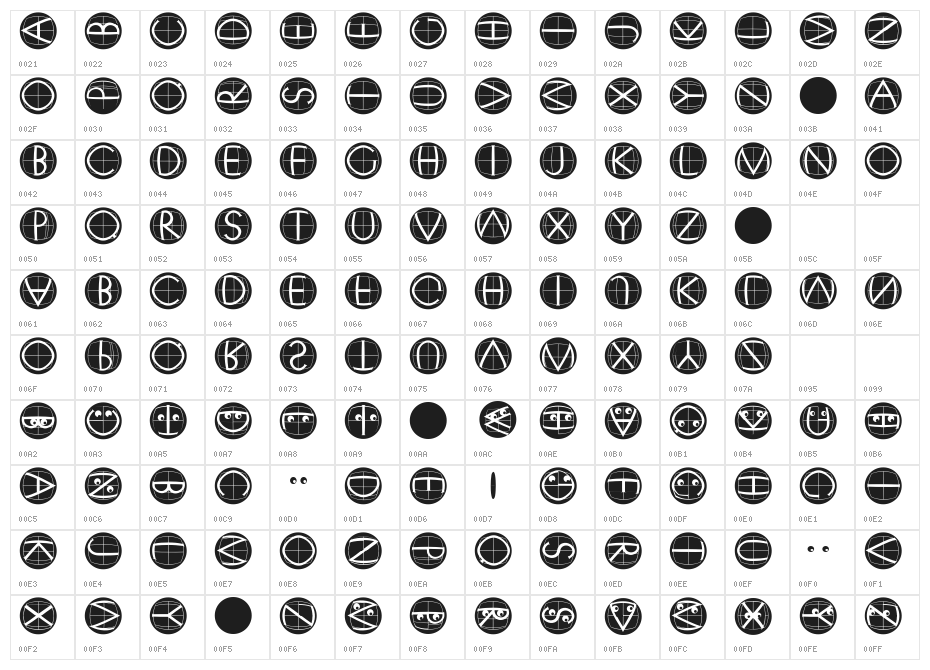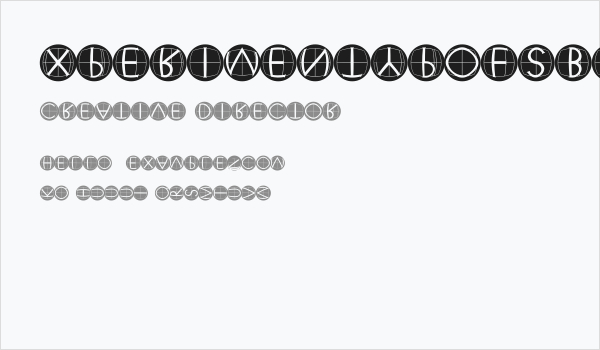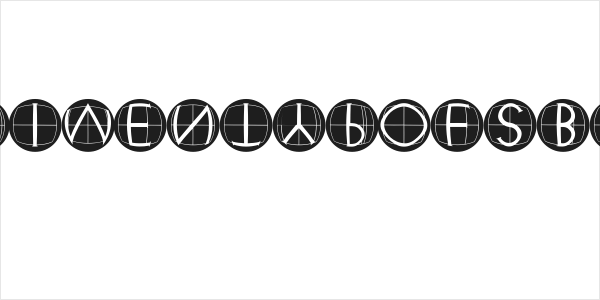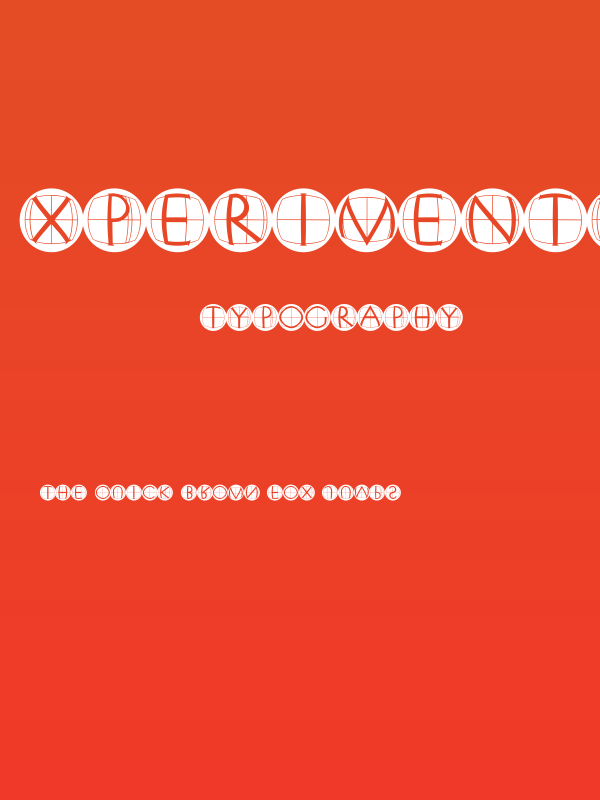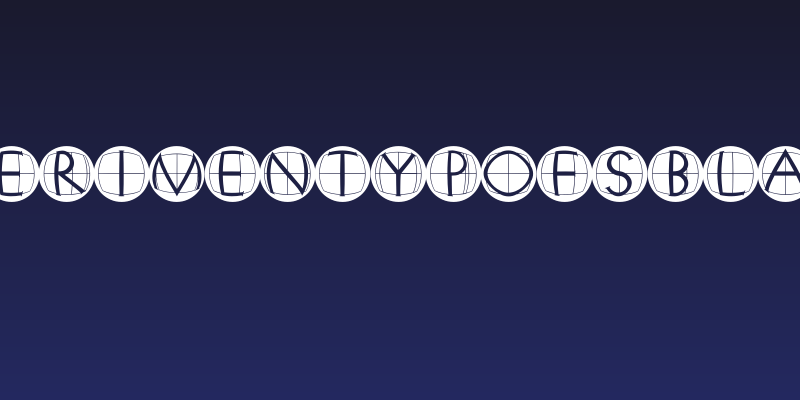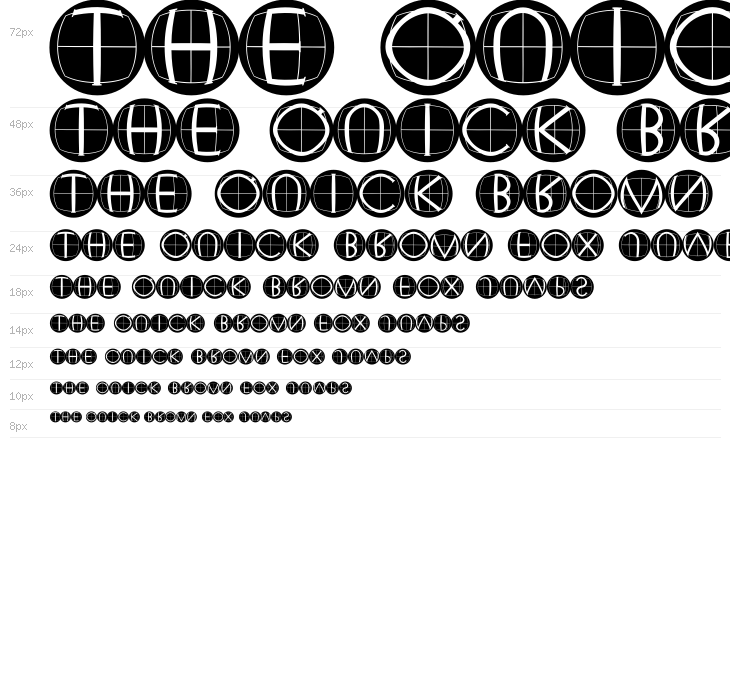
XperimentypoFSBlack Font
This font features a unique and experimental design with each character enclosed within a black circle. The letters are constructed using geometric lines and shapes, creating a futuristic and abstract appearance. The strokes are consistent in width, giving a uniform look across the alphabet. The characters are highly stylized, with a focus on symmetry and balance, making them stand out in any design. The font's circular background adds an additional layer of visual interest, making it suitable for creative and modern projects.
Proposed ProjectsIdeal for modern art projects, album covers, posters, and branding that requires a bold and experimental look.